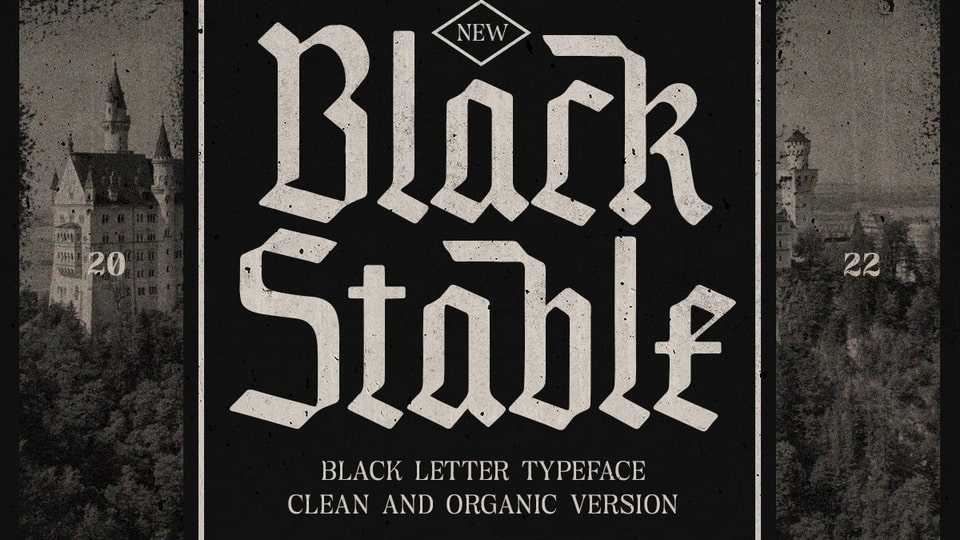
Download Black Stable font, a modern blackletter typeface. Black Stable font perfectly made to be applied especially in logo, clothing, fashion, headline, or any type of advertising purpose.